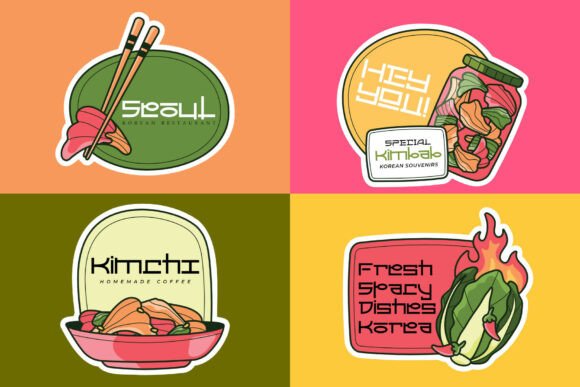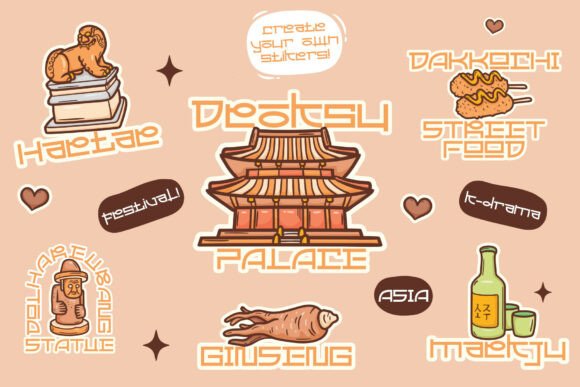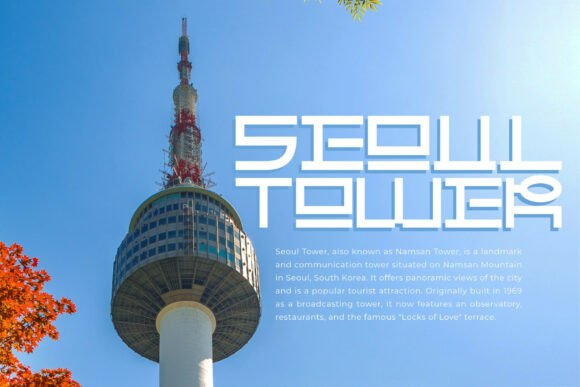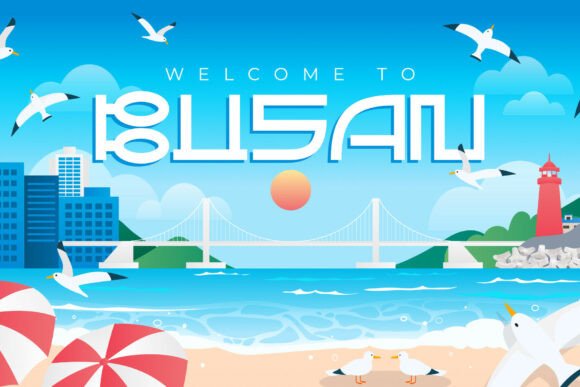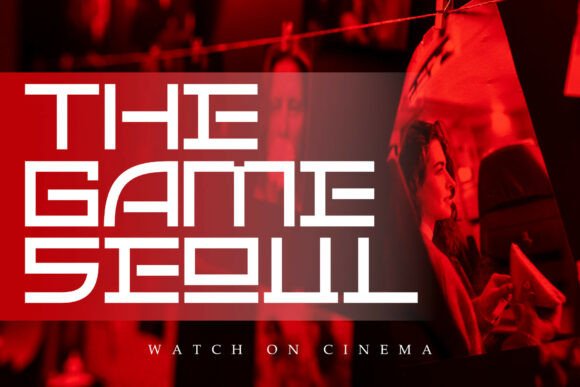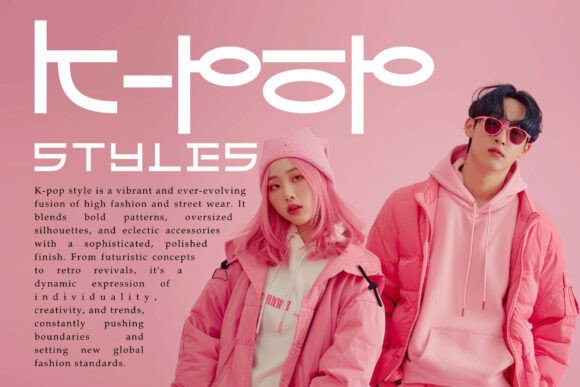
Introduction to Korean Daebak Font
Do you remember that moment when you stumbled upon the perfect font to elevate your creative project? The one that sparks excitement and sets your design apart from the rest? For graphic designers and enthusiasts, that moment is about to arrive with the introduction of the Korean Daebak Font. This dynamic faux Korean display font is not just a design element, but a statement piece that exudes the bold spirit of Hangeul.
As a design resource, Korean Daebak Font is a game-changer, offering a high-quality, transparent background that seamlessly integrates into any project. Its unique, blocky structure and stylized elements pay homage to the beautiful complexity of the Korean alphabet, making it instantly recognizable and impactful. With its strong presence, this font is an excellent choice for a wide range of applications, from captivating logotypes to eye-catching poster designs.
Key Features of Korean Daebak Font
- High-quality design resource ideal for creative projects, offering a unique and eye-catching style.
- Unique characteristics include a bold, playful, and modern design style, making it perfect for a variety of creative projects, from logos to graphics and more.
Honest Review: Korean Daebak Font
I recently had the chance to work with the Korean Daebak Font, and I must say it’s been a great addition to my design resource library. This high-quality font is perfect for any creative project that requires a unique and eye-catching aesthetic.
What works well with the Korean Daebak Font is its versatility. The font comes in a variety of styles, from bold and playful to elegant and sophisticated. The transparent background option also makes it easy to use in any design setting.
One limitation I’ve noticed is that the font may not be suitable for all design projects, particularly those that require a more traditional or conservative look. Additionally, the font’s bold styles can be overwhelming in certain contexts.
Overall, I’m impressed with the Korean Daebak Font and would definitely recommend it to designers looking for a high-quality, unique font to add to their design resource library.
For the most out of the Korean Daebak Font, use it for titles, headings, and other prominent text elements. This font is ideal for creating high-quality designs with a free download, making it a valuable design resource for any creative project.
Compared to Korean Daebak Font, Batang Font is more formal and less playful, making it suitable for professional and corporate designs. While Korean Daebak Font excels in conveying a sense of fun and whimsy, Batang Font provides a more refined and polished look.